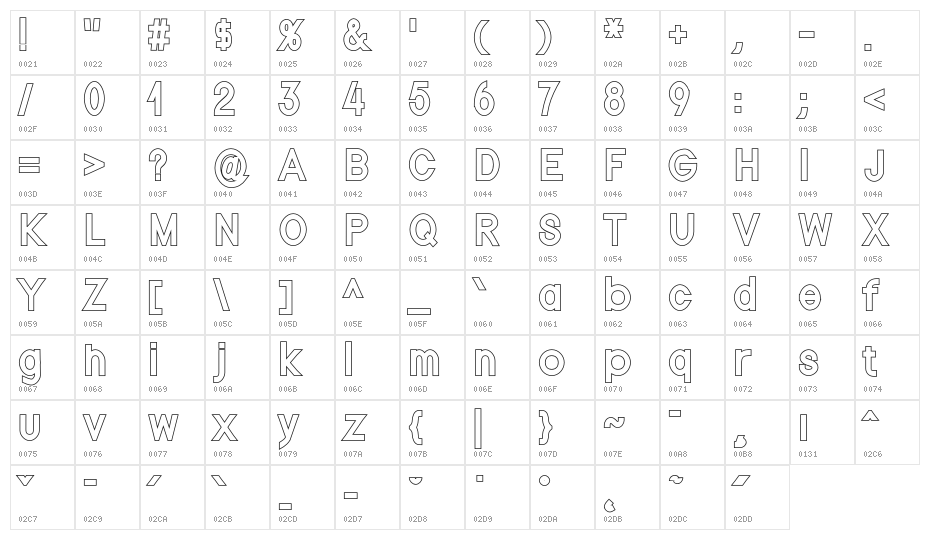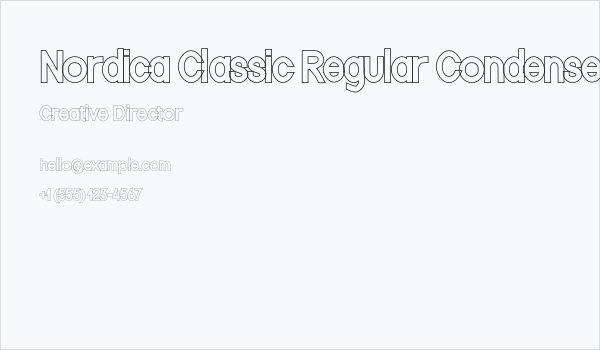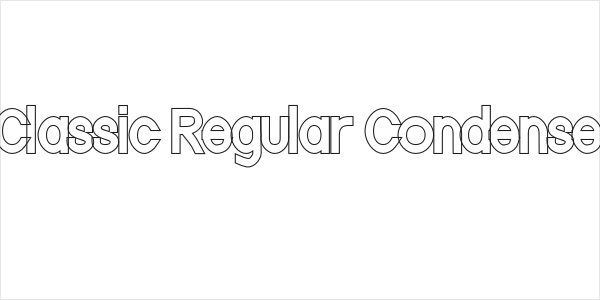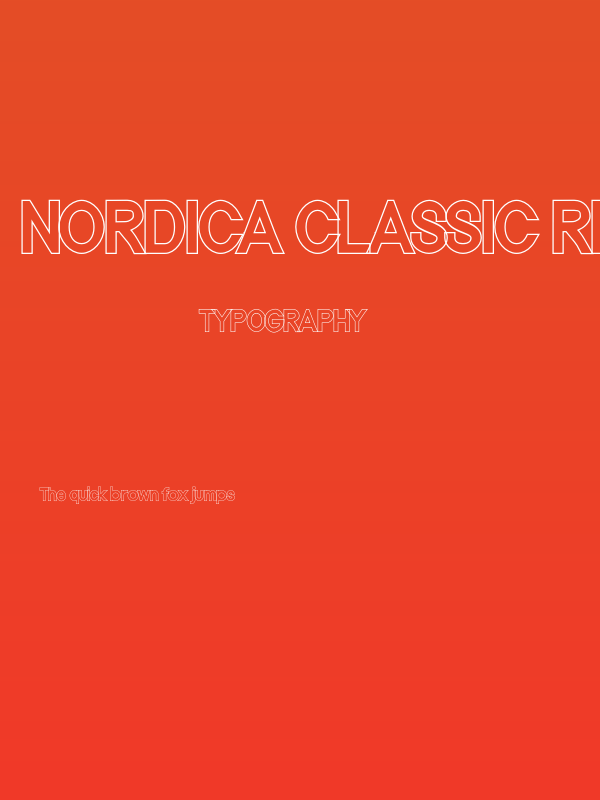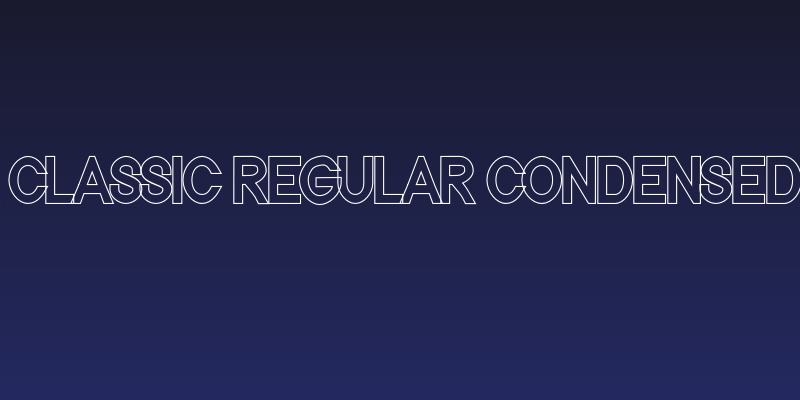
Nordica Classic Regular Condensed Outline Font
Nordica Classic Regular Condensed Outline Description
This font features a clean, geometric design with an outline style, giving it a modern and sleek appearance. The characters are uniformly structured, maintaining a consistent height and width throughout. The uppercase and lowercase letters are well-proportioned, with a slight emphasis on verticality due to the condensed nature of the font. The numerals and special characters follow the same design principles, ensuring a cohesive look across all elements. The outline effect adds a unique dimension, making the font suitable for creative and eye-catching designs. Its simplicity and clarity make it versatile for various applications, while the outline style provides a distinctive aesthetic that stands out.
| Proposed Projects | Ideal for branding, posters, headlines, and digital graphics where a modern and distinctive look is desired. |